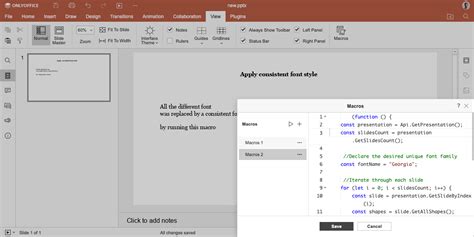
How to Apply Font: Mastering Style Without the Hype
Ever pause while scrolling and wonder why certain text feels effortless, confident—even inspiring? That quiet power often comes down to how a font is applied, not just what it looks like. In today’s visual-driven digital landscape, knowing how to Apply Font thoughtfully can elevate everything from personal design to digital branding across the US market. More than a style choice, it’s a tool shaping communication, readability, and user experience.
Why How to Apply Font Is Gaining Attention in the US
American creators and designers increasingly prioritize visual clarity and consistent messaging in digital spaces. With the rise of digital minimalism, intentional typography has moved from niche preference to essential practice. People are exploring how to Apply Font not out of fleeting trends, but because polished typography supports credibility, engagement, and emotional tone—especially on mobile-first platforms where users make split-second design judgments. This shift reflects a broader cultural demand for thoughtful, user-centered content that balances aesthetics with purpose.
How How to Apply Font Actually Works
Applying font effectively starts with understanding typefaces and spacing. Font choice influences legibility, tone, and hierarchy. On digital screens, proper kerning—how characters fit together—enhances readability. Line height, letter spacing, and contrast ensure text isn’t overwhelming, especially at small sizes. Web-safe fonts load quickly and render consistently across devices, while system fonts offer speed and efficiency. In practice, applying font involves selecting type based on content type, screen size, and user context—key to guiding attention without distraction.
Common Questions People Have About How to Apply Font
Q: How does font choice affect readability on mobile?
A: Font size and spacing are crucial. Small text with tight spacing strains eyes; increased line height and optimized font weight improve legibility on phones.
Q: What fonts are best for professional documents vs. social media?
A: Clean serif or sans-serif fonts generally work best for formal contexts, while bold, simple displays work well in marketing—context shapes font suitability.
Q: Can changing a font improve my website’s engagement?
A: Yes. Consistent, well-spaced typography supports visual hierarchy,